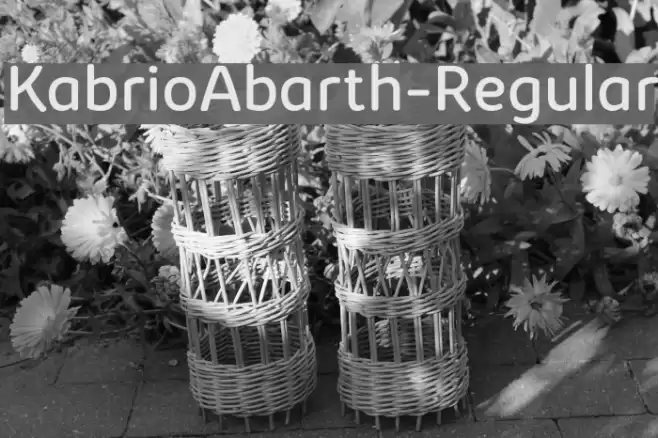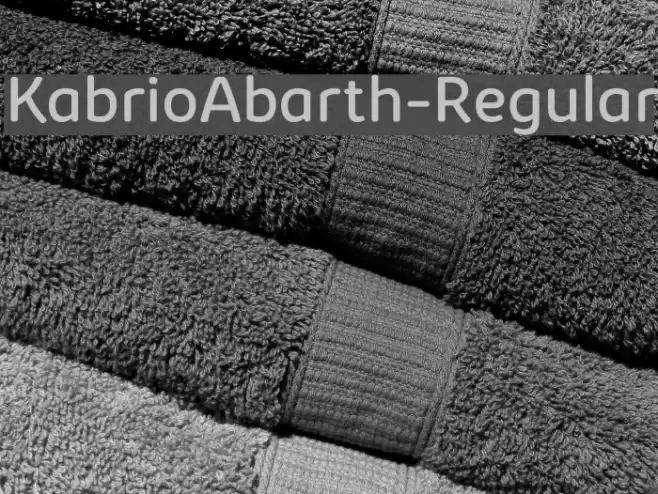
KabrioAbarth-Regular Font
KabrioAbarth-Regular Description
This font features a clean and modern sans-serif design with rounded edges that give it a friendly and approachable appearance. The characters are evenly spaced, providing a balanced and harmonious look. The uppercase and lowercase letters maintain a consistent style, with smooth curves and a uniform stroke width that enhances readability. The numerals and special characters are designed to complement the alphabet, ensuring versatility across various applications. Its simplicity and clarity make it suitable for both digital and print media.
A modern, rounded sans-serif font with a clean and approachable style from Uncategorized fonts.
- Proposed Projects: Ideal for branding, web design, user interfaces, and educational materials due to its readability and modern aesthetic.